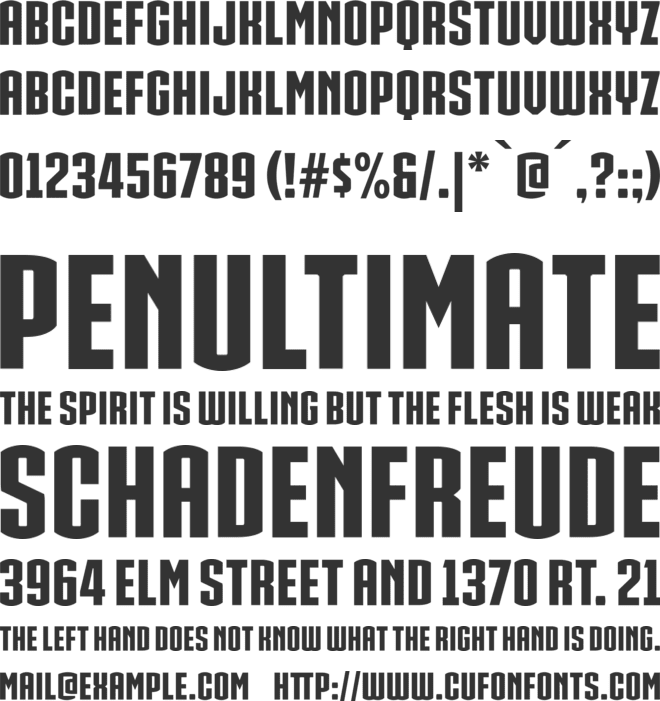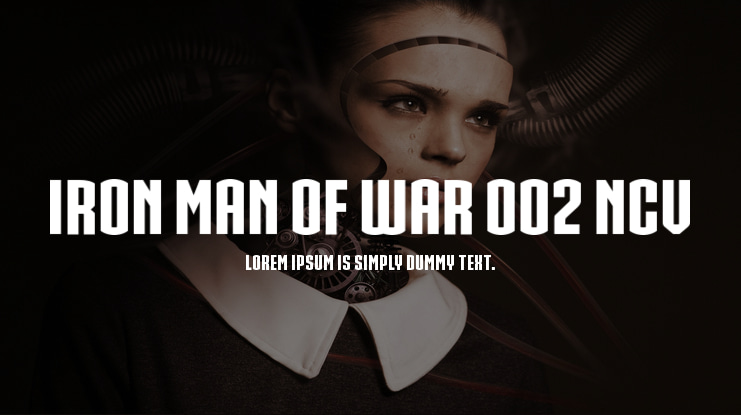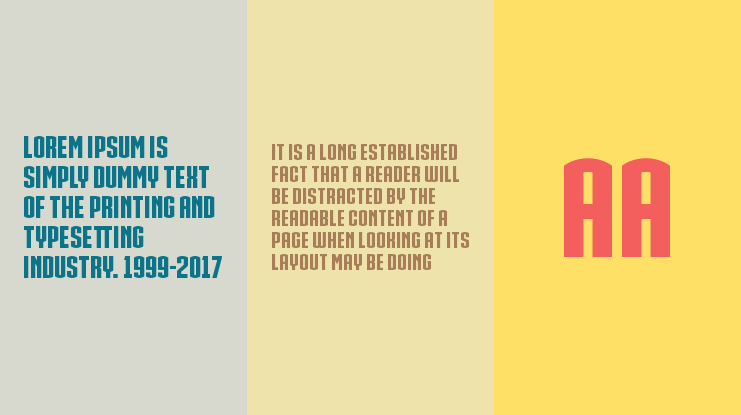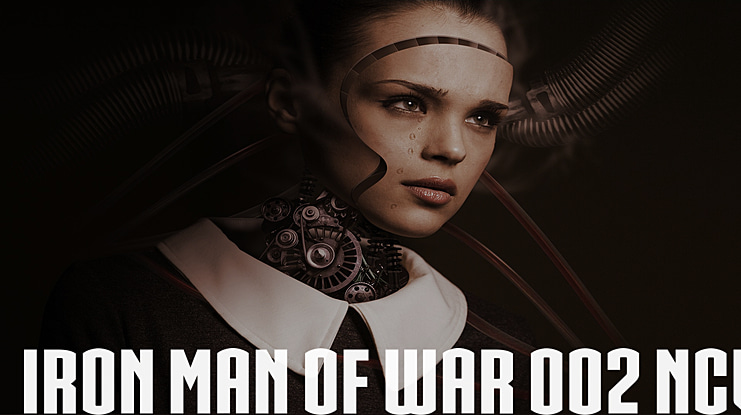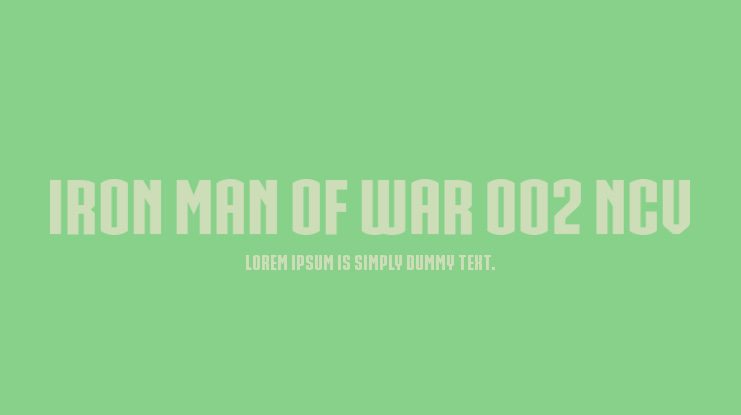
IRON MAN OF WAR 002 NCV Font
IRON MAN OF WAR 002 NCV is the second face in the IRON MAN OF WAR family. While it certainly has industrial-strength presence, be sure to look for our other IMOW NCV fonts, and visit our website for a complete picture of the entire IMOW collection.